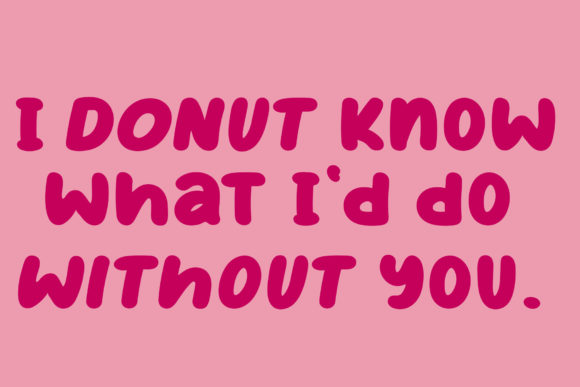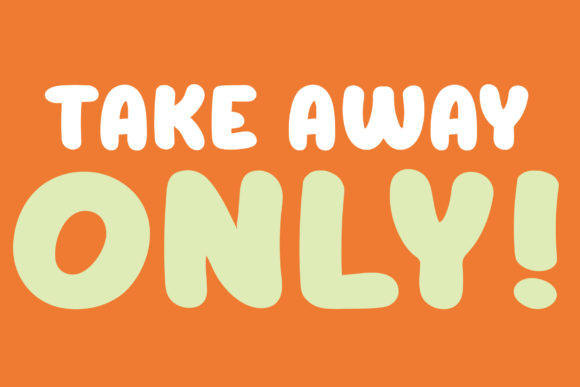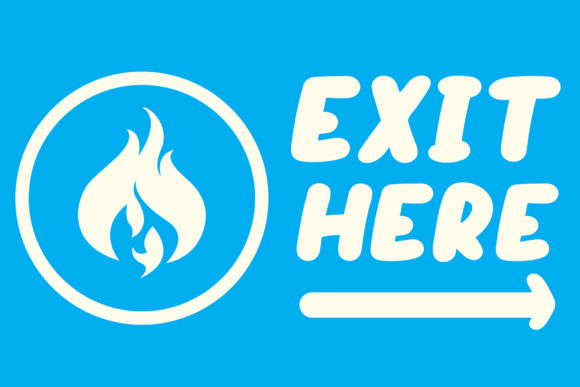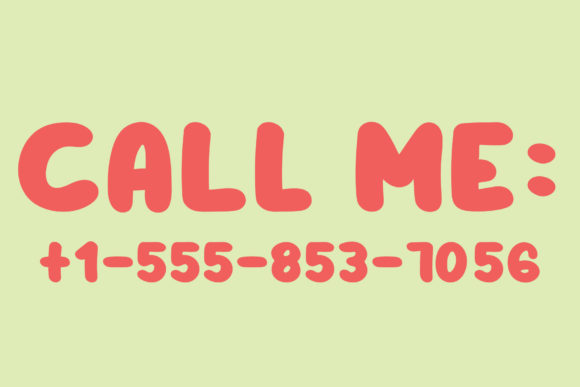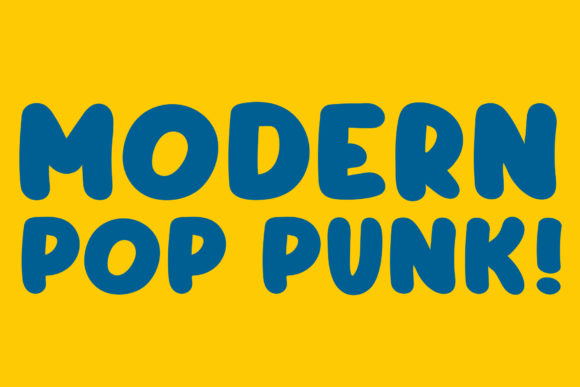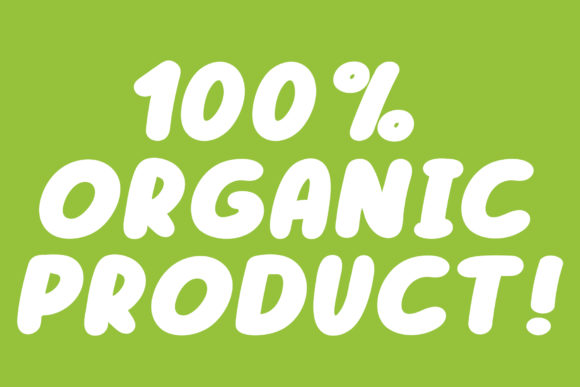
Grateful Everyday Font: Adding a Bouncy Touch to Your Designs
Are you tired of using the same old fonts in your designs? Do you want to add a fresh and contemporary touch to your creative projects? Look no further than the Grateful Everyday Font! This bouncy and quirky display font is perfect for designers and crafters who want to make their designs stand out from the crowd.
What is Grateful Everyday Font?
Grateful Everyday Font is a unique display font that is designed to add a playful and fun touch to your designs. Its bouncy and quirky style makes it perfect for use in a variety of creative projects, from posters and flyers to social media graphics and craft projects.
Key Features of Grateful Everyday Font
- Bouncy and Quirky Style: Grateful Everyday Font has a unique and playful style that is sure to grab attention.
- Display Font: This font is designed specifically for use as a display font, making it perfect for headlines, titles, and other prominent text elements.
- Fresh and Contemporary: The Grateful Everyday Font has a modern and fresh feel that will add a touch of sophistication to your designs.
- Easy to Read: Despite its playful style, the Grateful Everyday Font is easy to read, making it perfect for use in a variety of creative projects.
How to Use Grateful Everyday Font in Your Designs
There are countless ways to use the Grateful Everyday Font in your designs. Here are a few ideas to get you started:
- Posters and Flyers: Use the Grateful Everyday Font as a headline font to grab attention and add a playful touch to your posters and flyers.
- Social Media Graphics: Add a fun and playful touch to your social media graphics with the Grateful Everyday Font.
- Craft Projects: Use the Grateful Everyday Font to add a personal touch to your craft projects, such as handmade cards and gift tags.
- Logos and Branding: Consider using the Grateful Everyday Font as a logo font or as part of your brand identity.
Why Choose Grateful Everyday Font?
There are many fonts to choose from, but the Grateful Everyday Font stands out from the crowd. Here are a few reasons why:
- Unique Style: The Grateful Everyday Font has a unique and playful style that is sure to make your designs stand out.
- High-Quality Design: The Grateful Everyday Font is designed with high-quality craftsmanship, ensuring that it looks great in any design.
Tips for Using Grateful Everyday Font Effectively
Here are a few tips for using the Grateful Everyday Font effectively in your designs:
- Use it as a Headline Font: The Grateful Everyday Font is perfect for use as a headline font, where its playful style can really shine.
- Pair it with Other Fonts: Consider pairing the Grateful Everyday Font with other fonts to create a unique and interesting design.
- Experiment with Colors: Don’t be afraid to experiment with different colors and textures to really make your design pop.
| Font Name | Grateful Everyday Font |
| Author | Eifets |